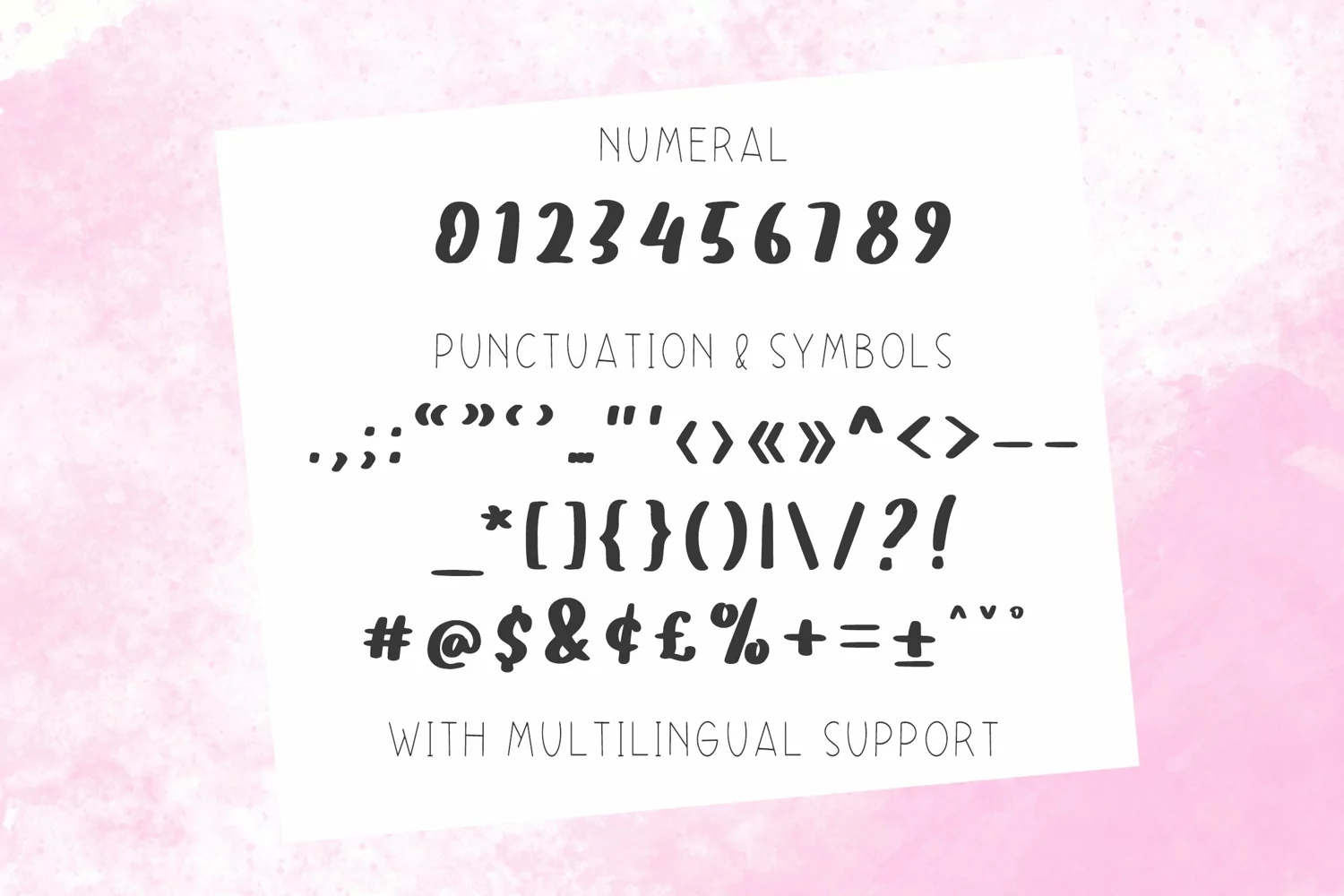
Bohema Duo example image 1
Bohema is a cute and quirky handwritten font. Sweet and playful, this typeface can elevate the look of any creation ranging from product packaging to business cards, and more!
BohemaFont
Bohema Boldy
Bohema Black